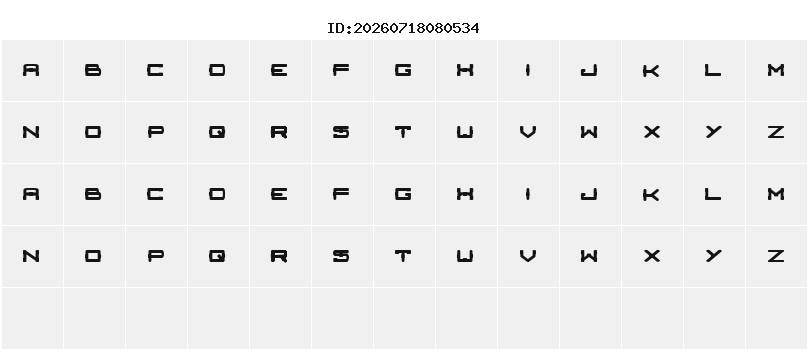
Charge Preview
• Font Name: Charge
• Full Font Name: Charge Standard
• Character Count: 52
About Charge.ttf
Charge.ttf is a modern, elegant sans-serif font designed for ultimate readability and visual harmony. Perfect for branding, headlines, web design, and print materials.